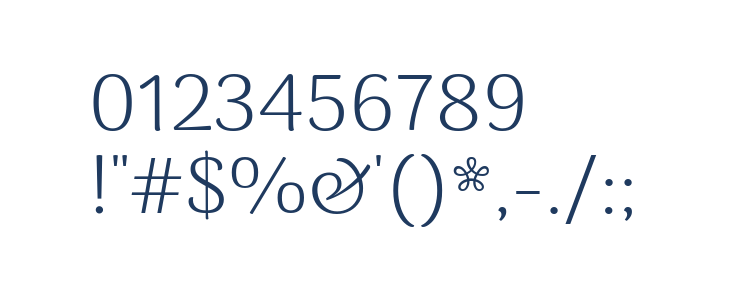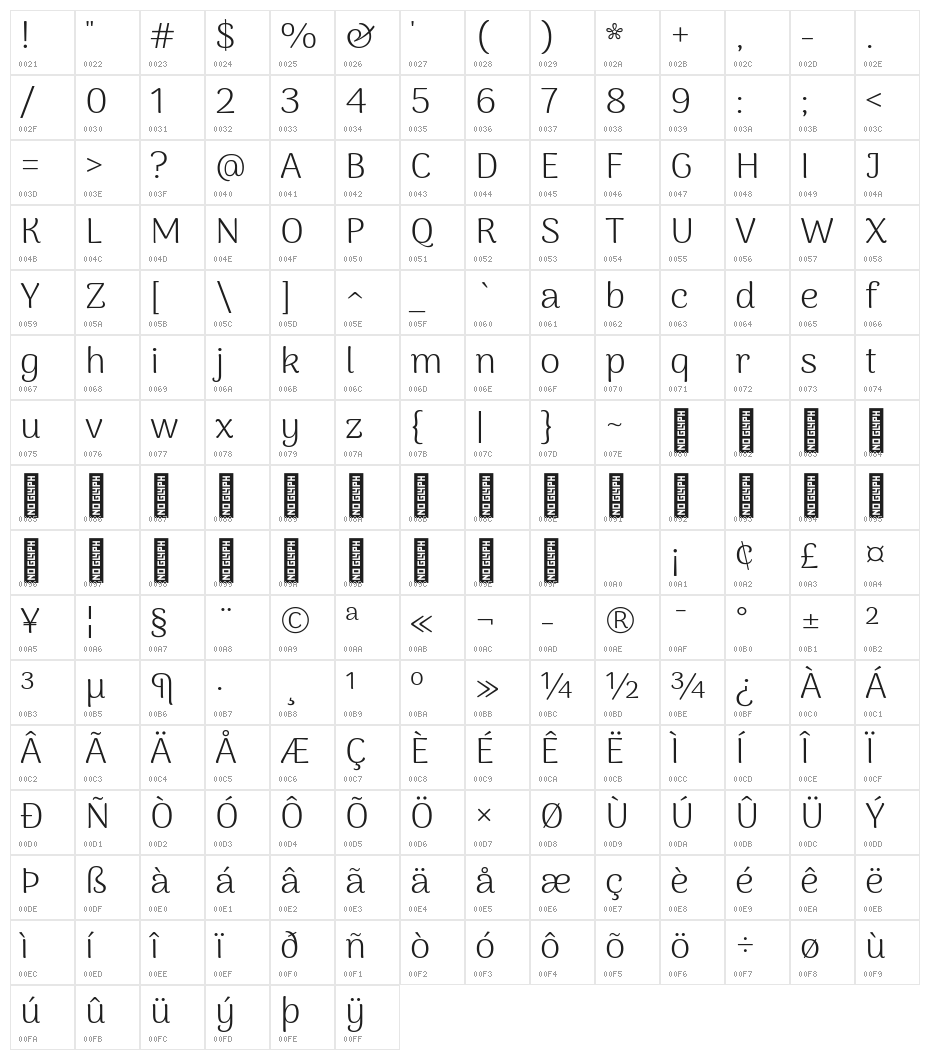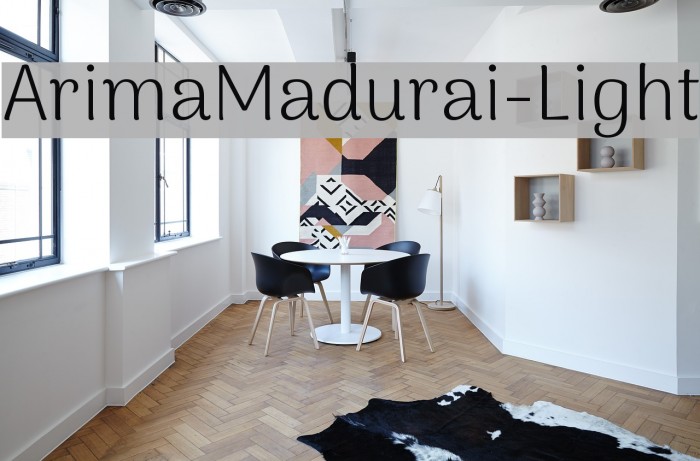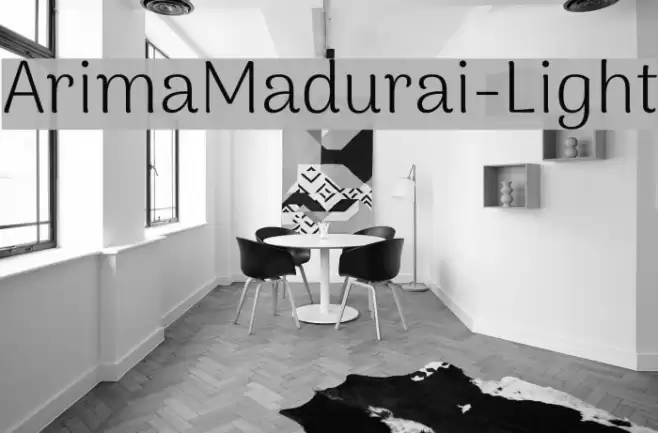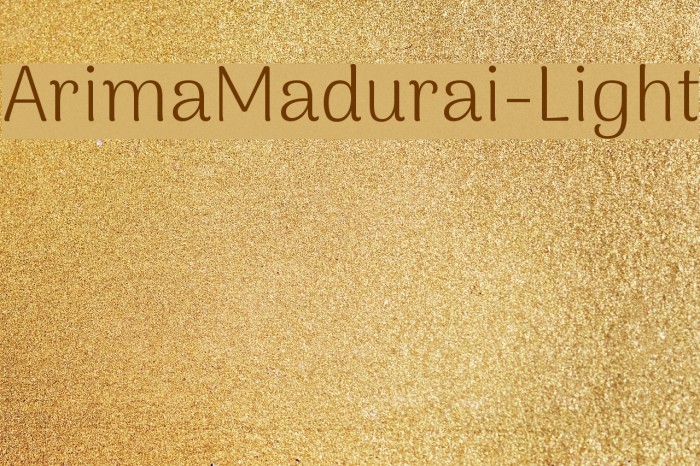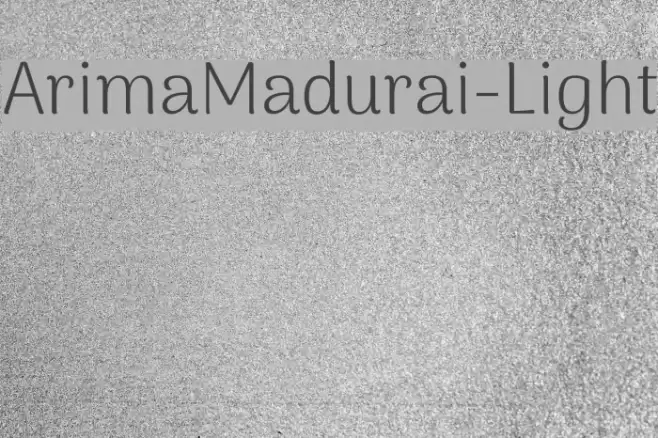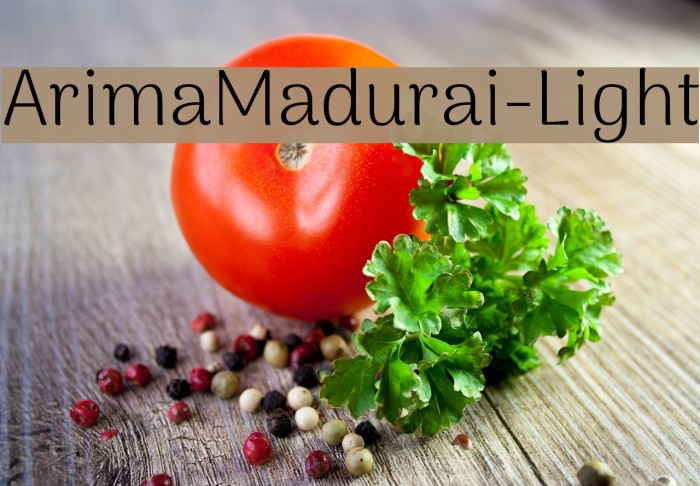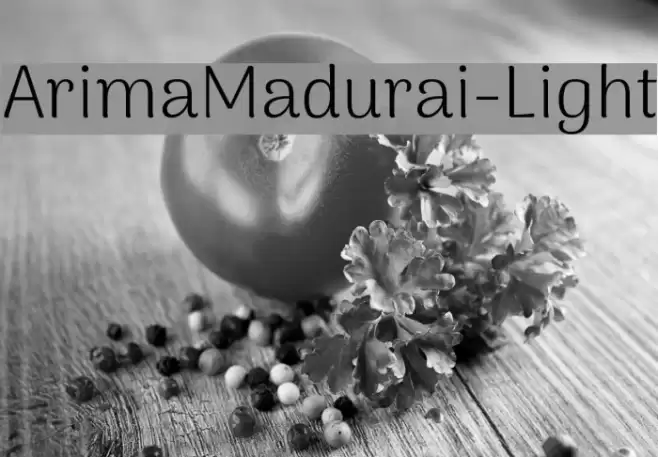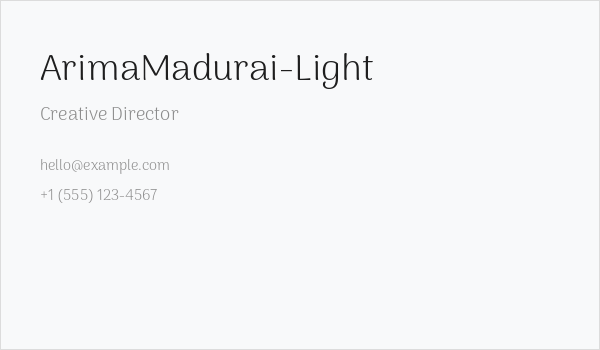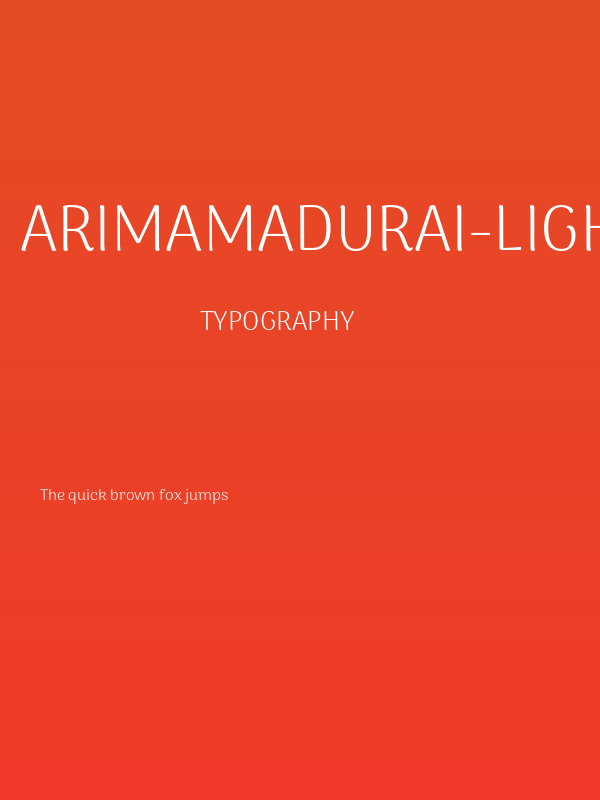
ArimaMadurai-Light Font
ArimaMadurai-Light Description
This font features a clean and modern design with a slight touch of elegance. The characters are well-proportioned with a consistent stroke width, giving it a harmonious appearance. The uppercase letters are tall and slightly narrow, while the lowercase letters maintain a friendly and approachable style. The numerals are clear and easy to read, making them suitable for various applications. Special characters are distinct and well-integrated into the overall design, ensuring versatility in usage. The font's simplicity and clarity make it ideal for both digital and print media.